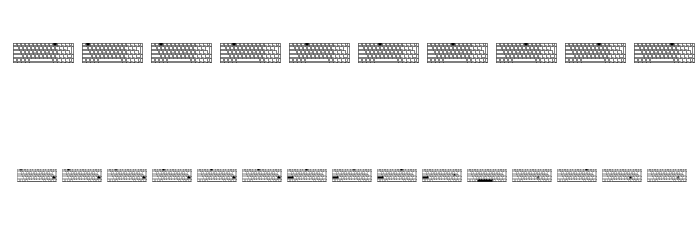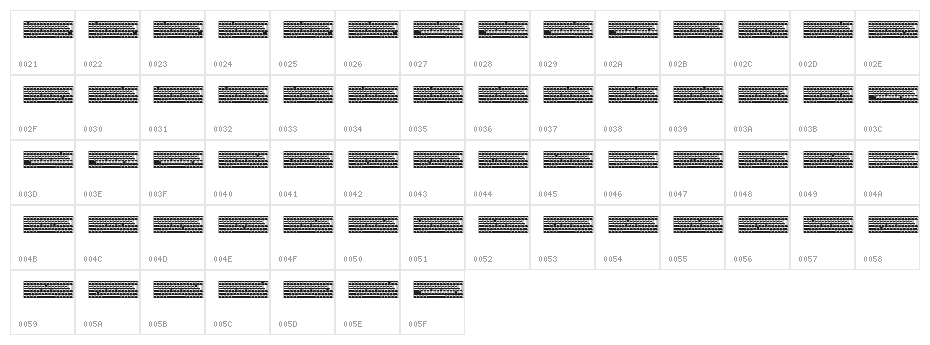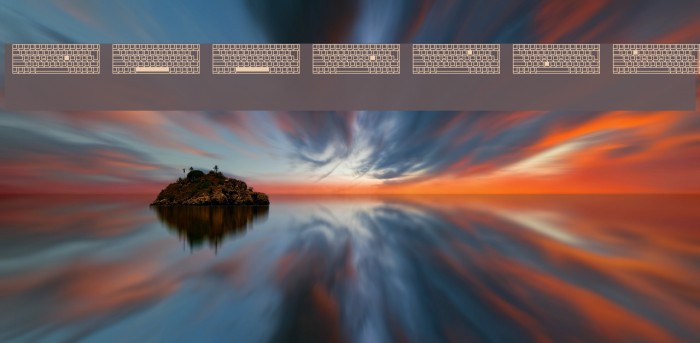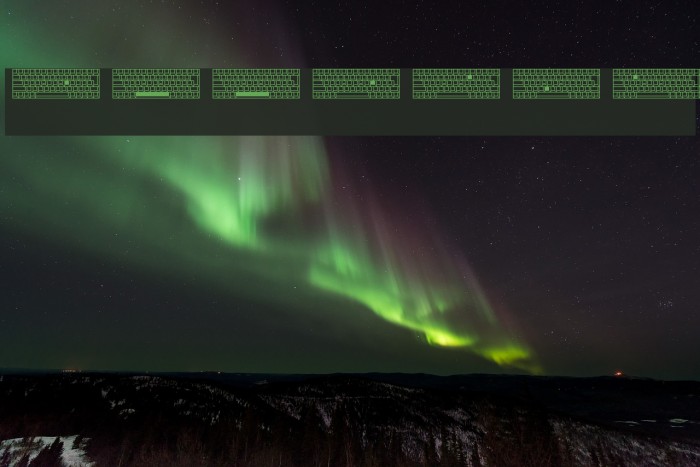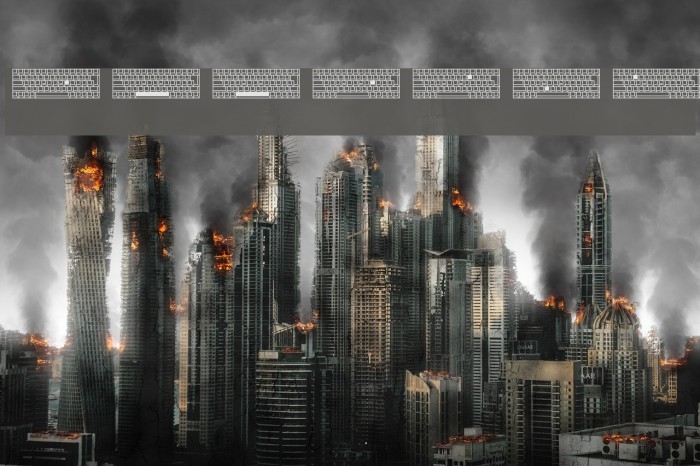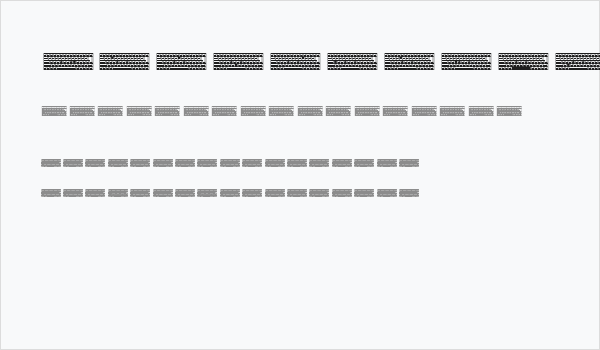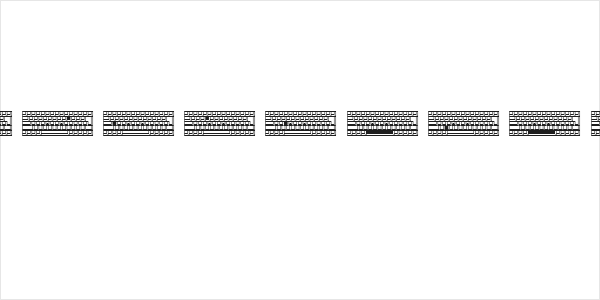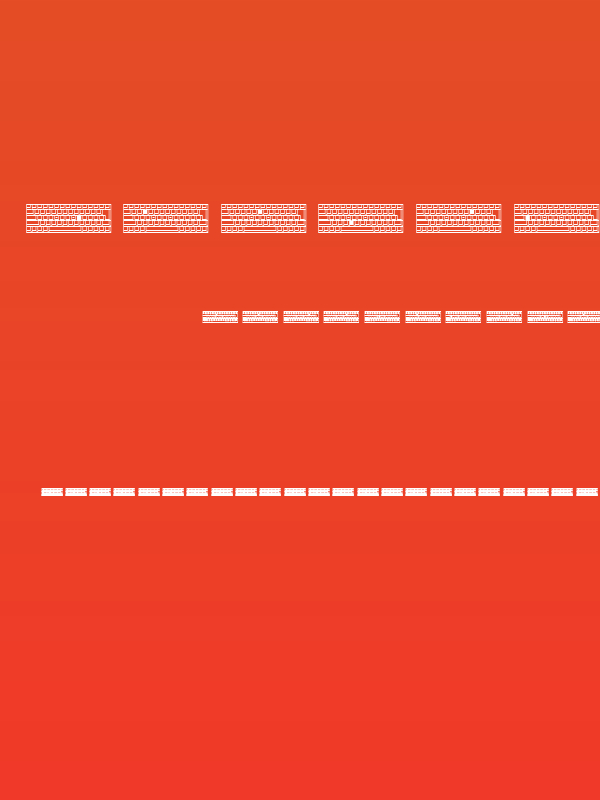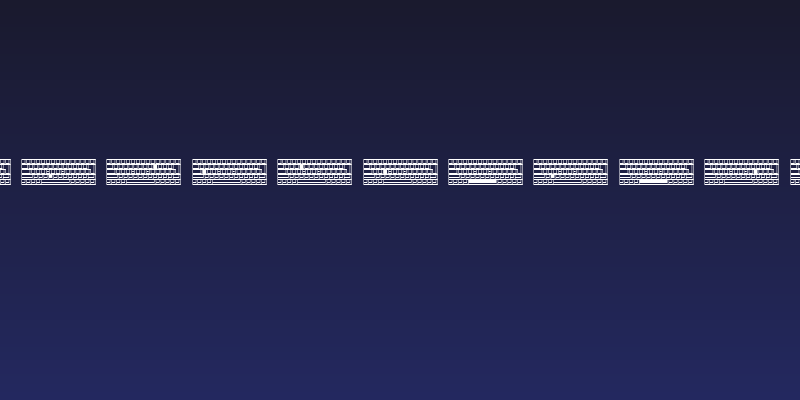
Keyboard x LOVE Font
Keyboard x LOVE Description
This font features a unique design where each character is composed of a pattern resembling a keyboard layout. The letters and numbers are formed by a series of keys, giving it a distinct and playful appearance. The style is highly decorative and unconventional, making it stand out for creative projects. The characters are evenly spaced, maintaining a consistent visual rhythm across the text. This font is ideal for projects that require a modern and quirky touch, such as digital art, posters, or themed event invitations. Its intricate design may not be suitable for body text but excels in capturing attention in headlines or logos.
| Proposed Projects | Digital art, posters, themed event invitations, headlines, logos. |